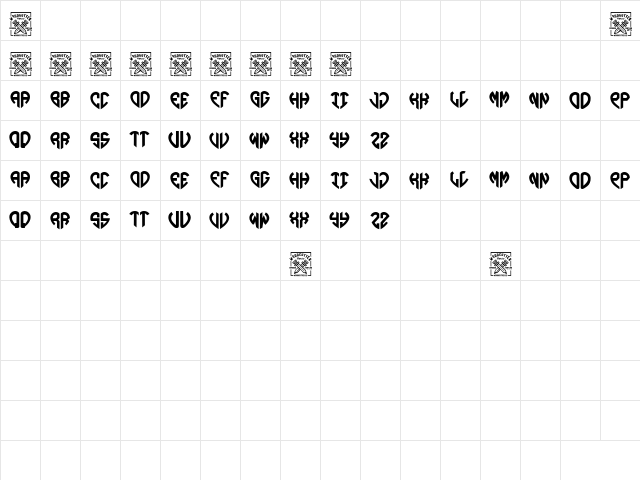
Lovegramos Regular
Design Context for Lovegramos Typeface
Lovegramos is a composed and adaptable typeface that performs quietly and consistently across a wide range of design contexts.